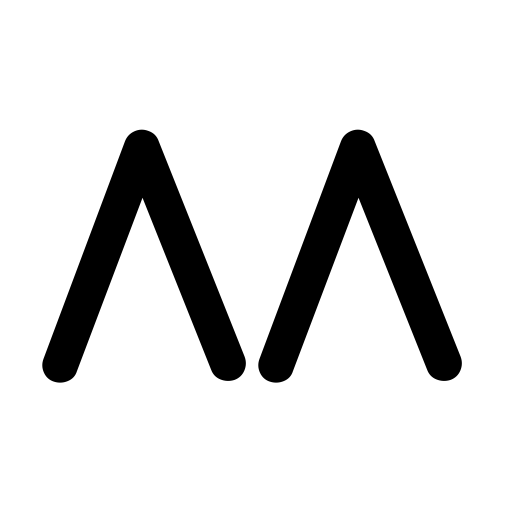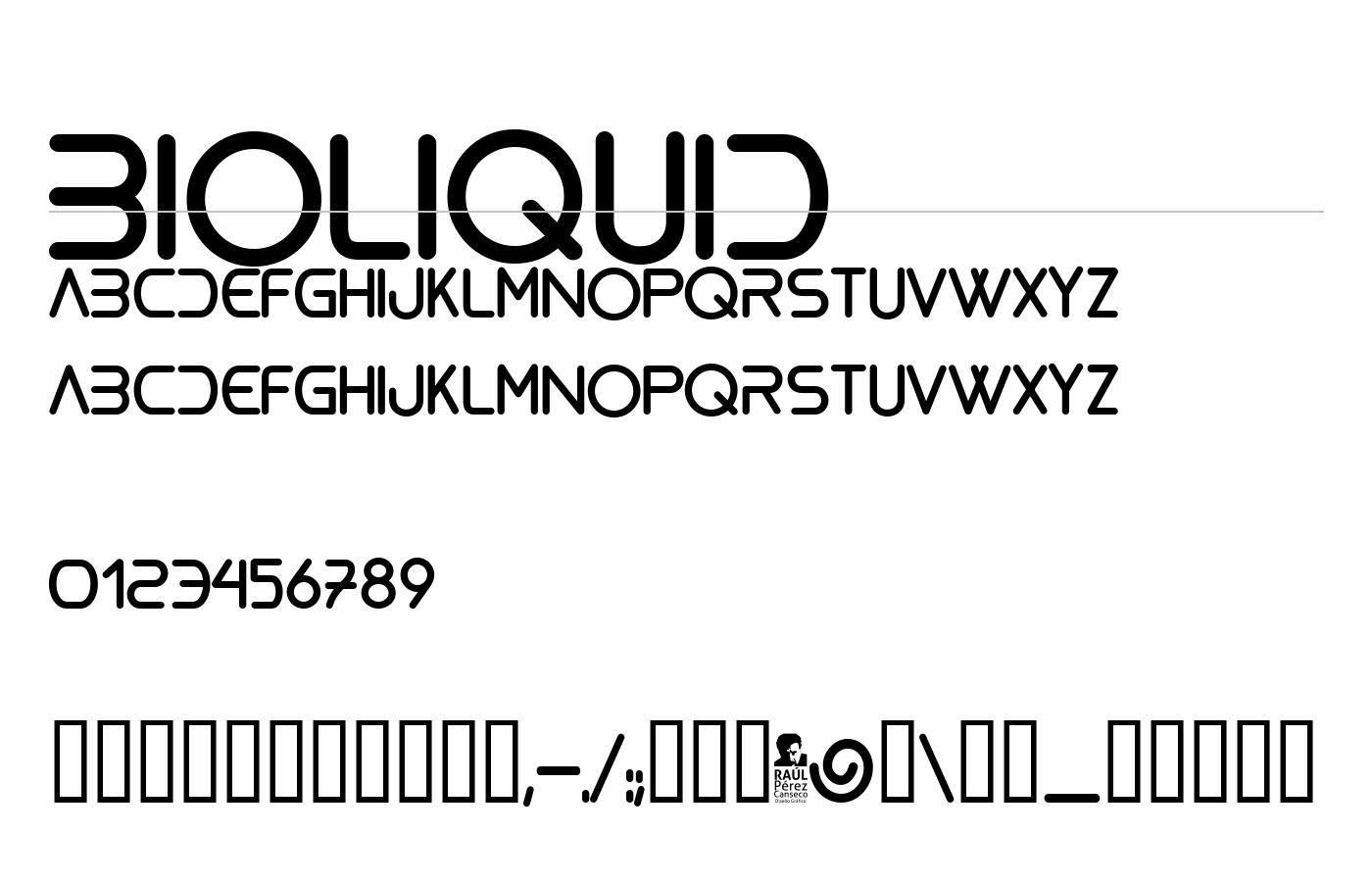
Bioliquid is a modern, geometric sans serif font characterized by its rounded corners and uniform stroke weight, giving it a clean yet futuristic vibe. Its tall x-height and tight spacing make it ideal for headlines, logos, and branding projects that want to convey innovation, technology, and sleek professionalism. This font works best in digital and print contexts where a fresh, contemporary feel is desired.
bioliquid Font
About bioliquid Font
| Designer | Raul Perez Canseco |